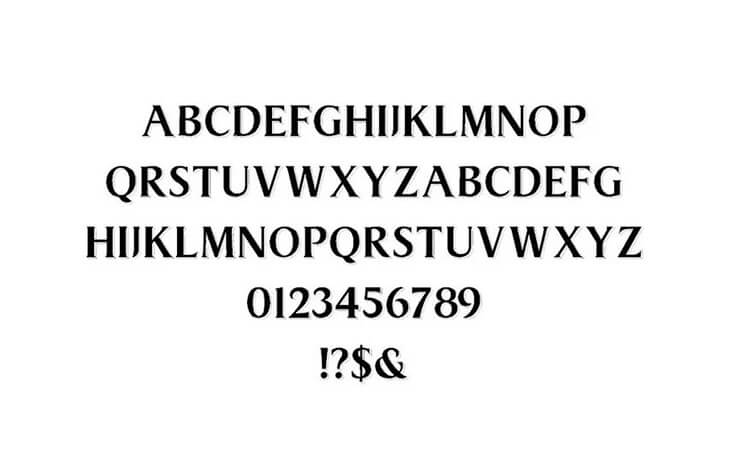
Introducing The Greatest Showman Font! The Greatest Showman Font is a 2017 American biographical musical drama film directed by Michael Gracey.
It was developed by Franco Fernandez and is being published in 2017 by FZ Fonts. He made it after observing all the letters we have seen in his movie title.
Here we are sharing the biggest font which is very similar to this movie logo. And when you apply it to your designs, you will find it perfect as its title.
Try it out for logos, book layouts, movie posters, video titling, fabric printing, social media posters, flyers, banners, product designs, banner ads, and more. Also, this font can be used for promotional purposes.
It is a serif font with 43 glyphs and 48 characters. It has a thick and bold texture that makes it ideal for long text paragraphs.